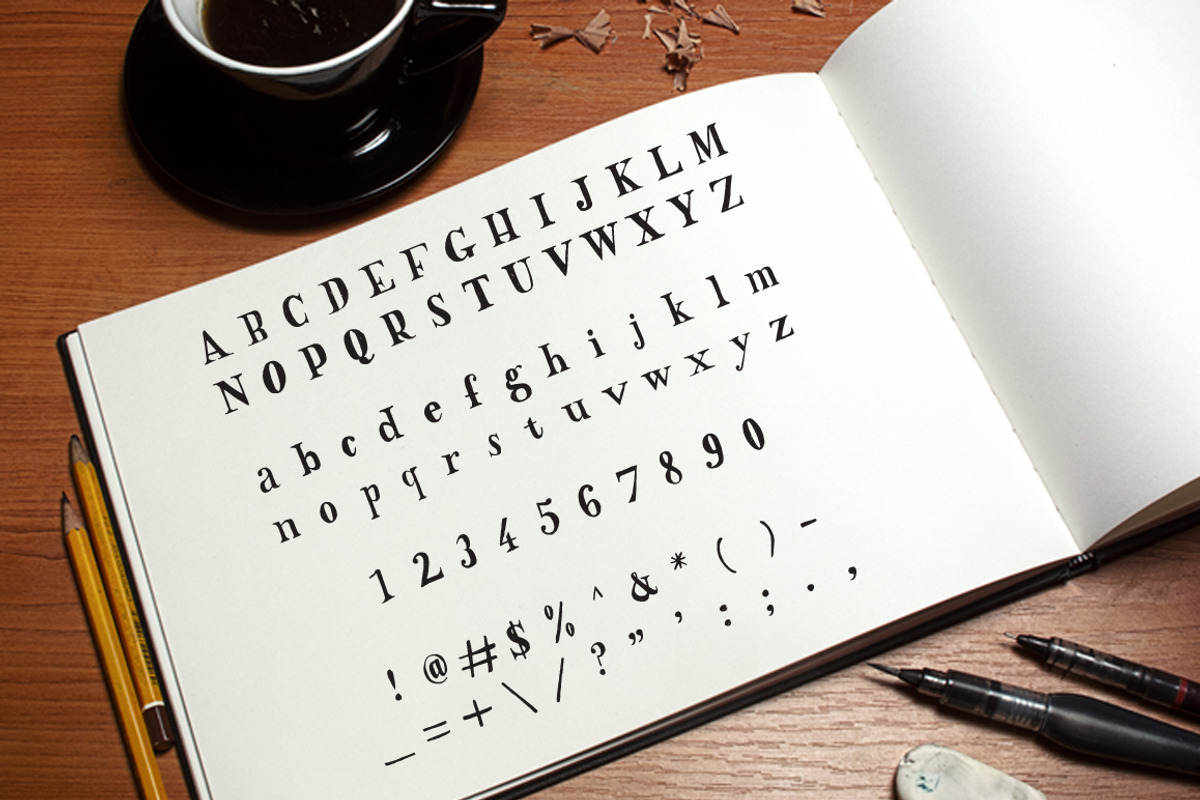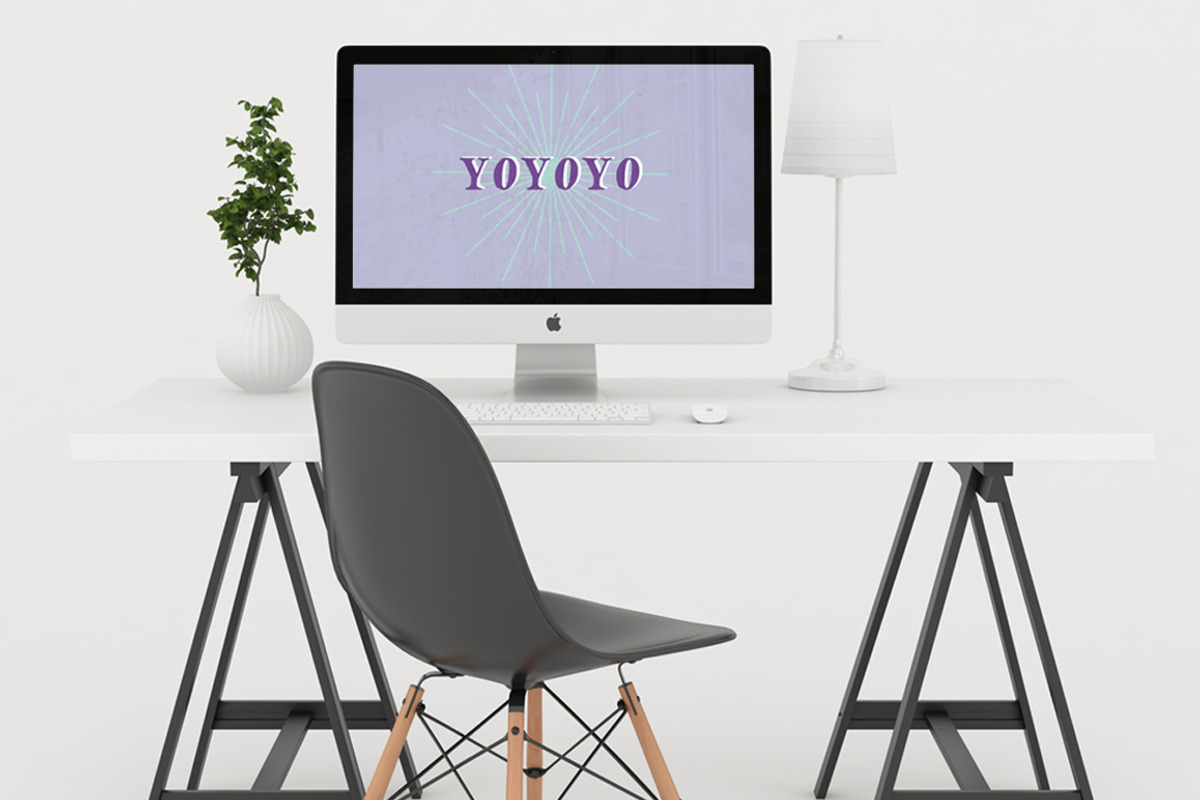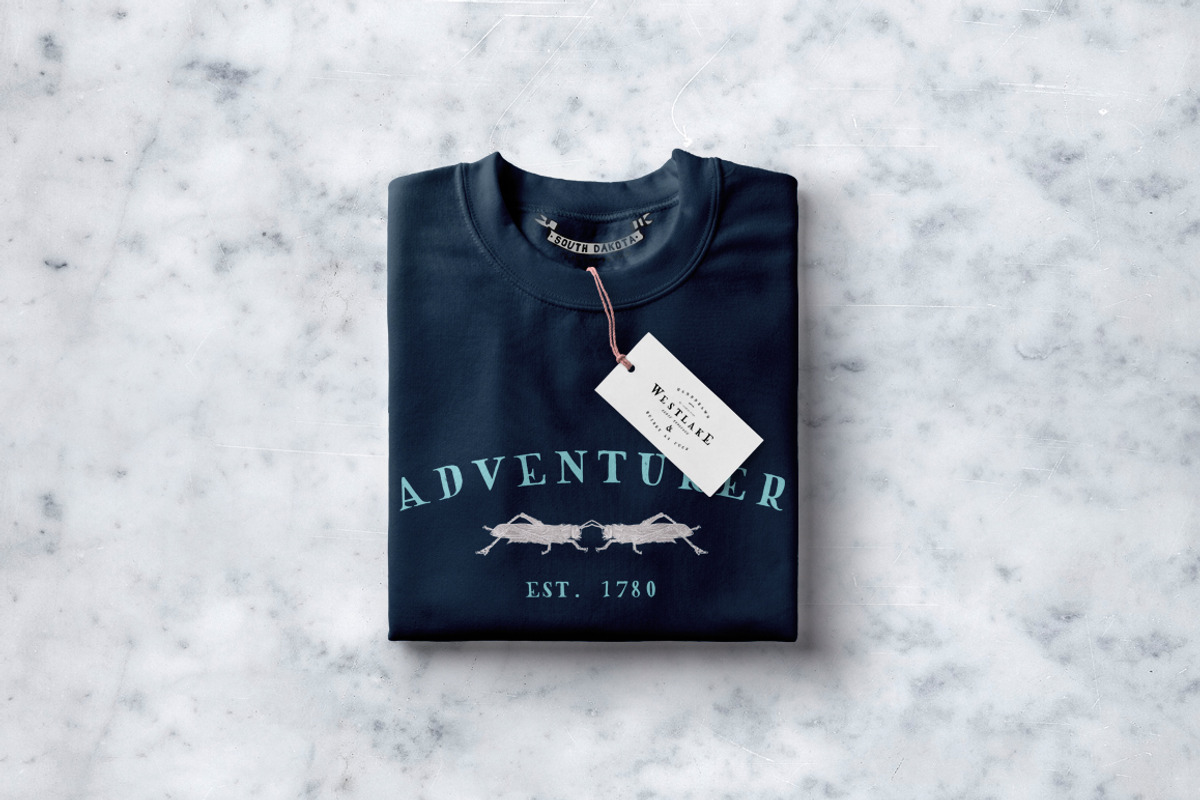
Westlake Hand Drawn Font
Westlake Hand Drawn Font by Studio.lize is a font selected for branding, posters, packaging, typography.
Westlake Hand Drawn Font by Studio.lize fits naturally into Branding, posters, packaging, typography.